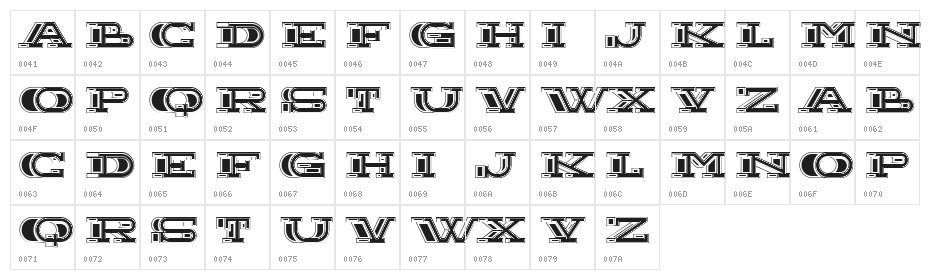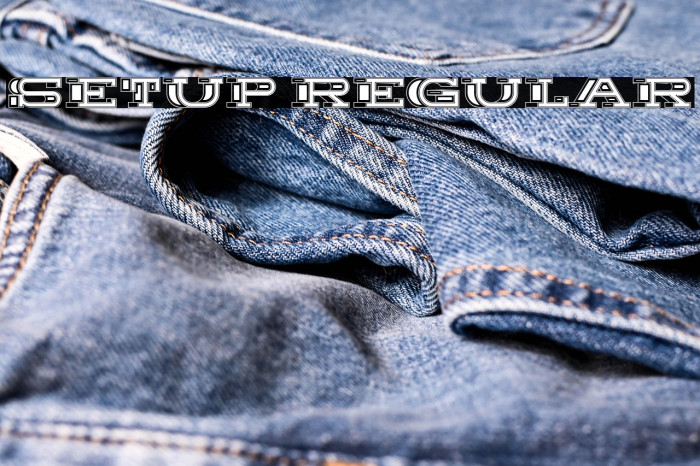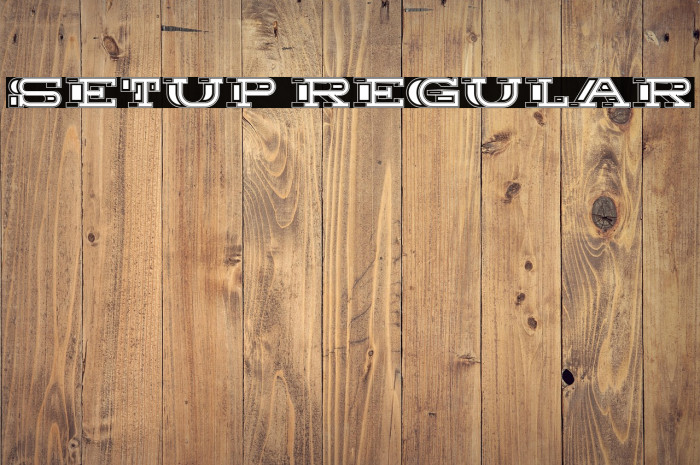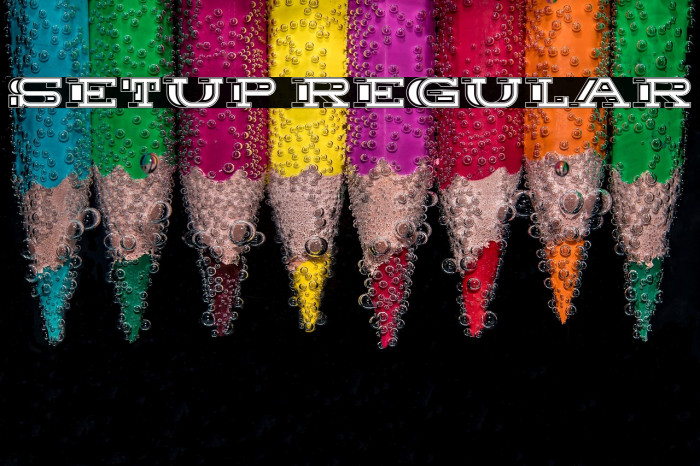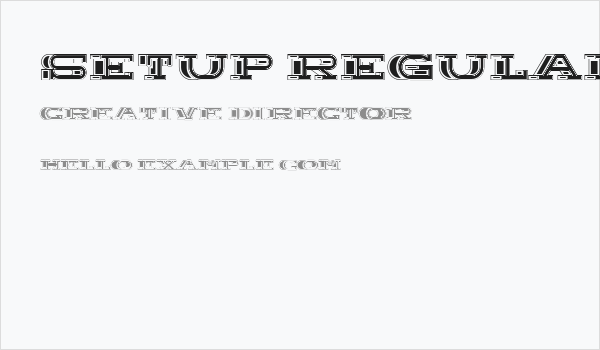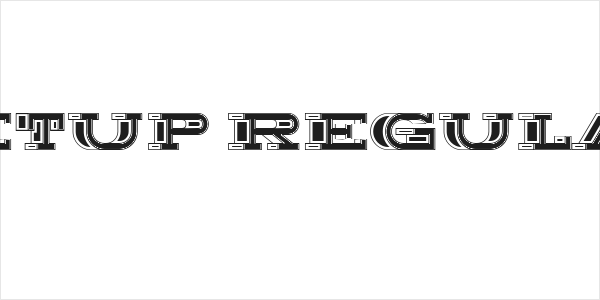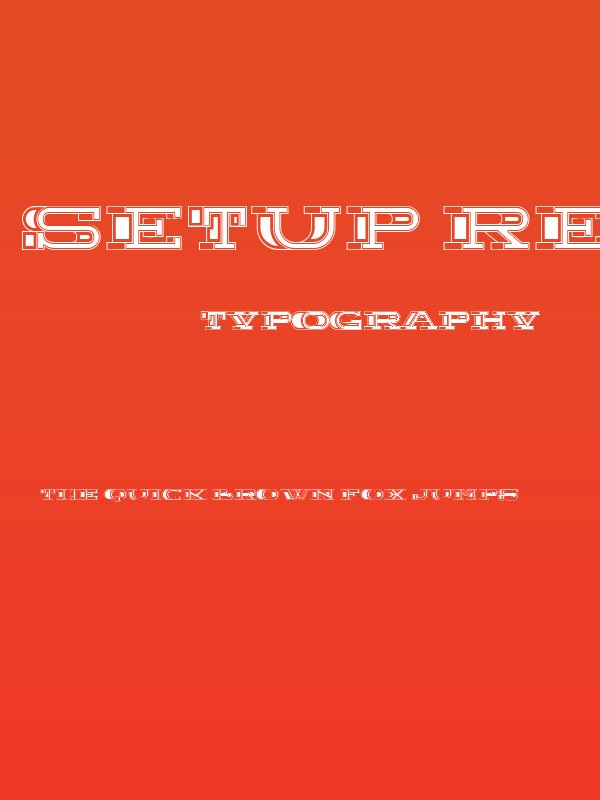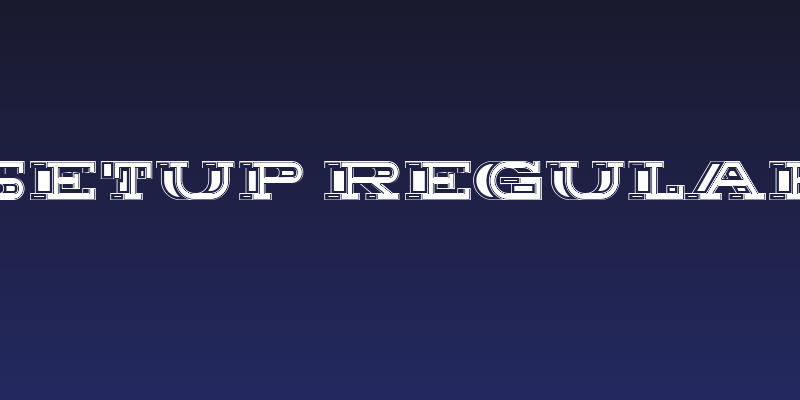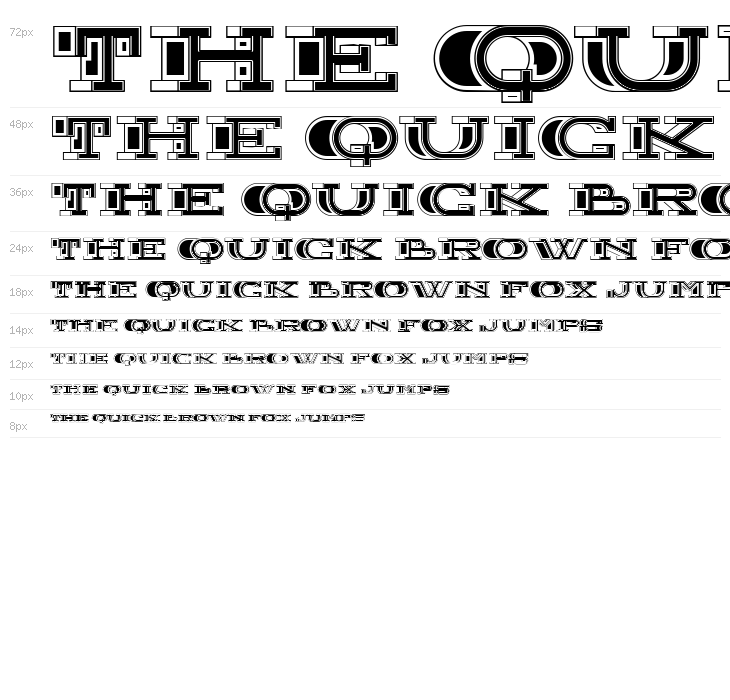
Setup Regular Font
Setup Regular Description
This font features a bold and striking design with a three-dimensional effect, characterized by its shadowed and outlined letterforms. The uppercase letters are crafted with a strong geometric structure, giving them a robust and impactful appearance. The font's unique style is further enhanced by its intricate detailing, which adds depth and visual interest. The overall aesthetic is reminiscent of vintage or retro signage, making it ideal for projects that require a touch of nostalgia or a bold statement. The font's design is both decorative and functional, allowing it to stand out in various applications.
| Overall Style | Vintage |
| Proposed Projects | Ideal for retro-themed posters, signage, branding, and packaging designs. |